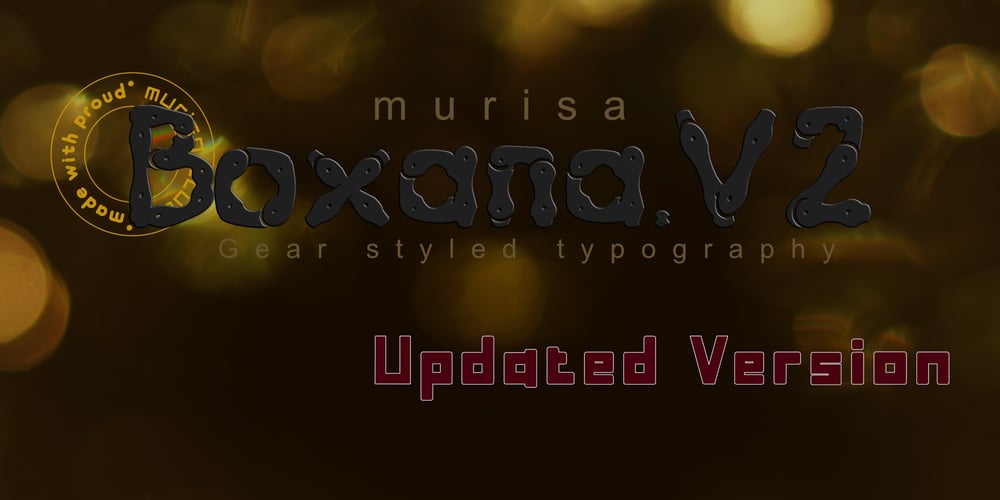
Murisa Boxana Font Family was designed by Lili Sadili and published by Murisa Studio. Murisa Boxana contains 2 styles and family package options. Boxana is a cool and bold display font. It will look stunning on any poster, flyer or print.Use this font for your designs and explore its endless possibilities.